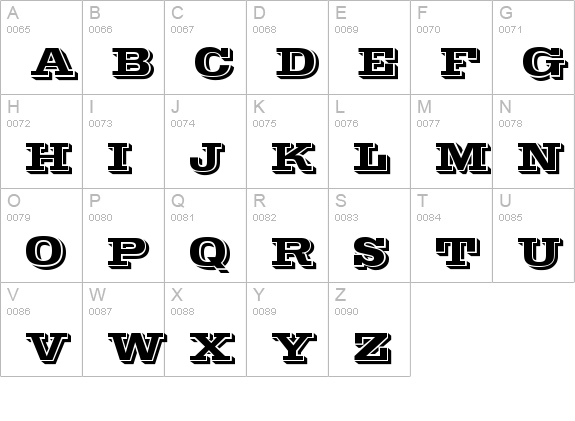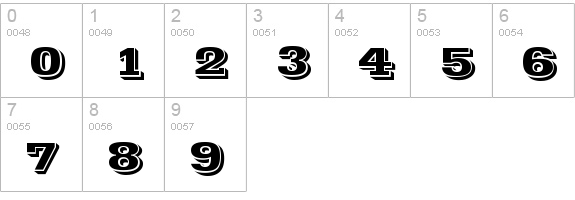
Vinera Font Details
Vinera font is a stunning typeface that exudes elegance and sophistication. With its sleek and modern design, it is perfect for adding a touch of class to any project. The letters are beautifully crafted, with clean lines and intricate details that make this font truly unique. One of the best things about Vinera font is that it is completely free. That's right, you can download this amazing font without having to spend a dime. Whether you're a professional designer or just someone who loves typography, Vinera font is a must-have in your collection. You can easily find Vinera font at FontsMarket.com, where it is freely available for download. FontsMarket.com is a trusted source for high-quality fonts, and they offer a wide range of options to suit every style and preference. Once you start using Vinera font, you'll immediately notice how it elevates your designs. Its versatility allows it to be used in various contexts, from branding and advertising to website design and social media graphics. The clean and sophisticated look of Vinera font will make your projects stand out from the crowd. So why wait? Head over to FontsMarket.com and get your hands on Vinera font today. Don't miss out on the opportunity to enhance your designs with this amazing typeface that is both visually stunning and freely accessible to all.